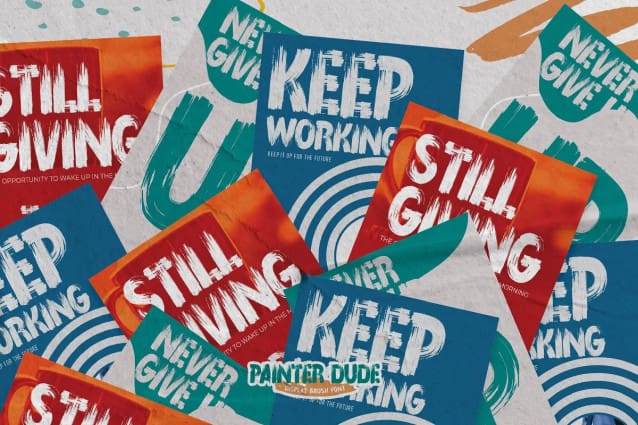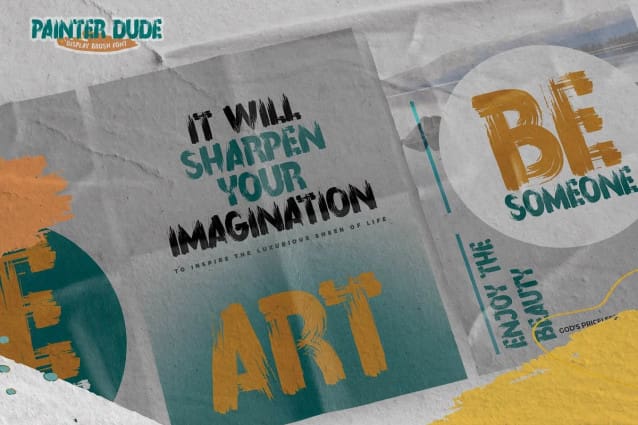
Painter Dude Font
Painter Dude Font – This Is Display Brush Font. This is a Textured Natural Style and classy style with a clear style and dramatic movement. This font Painter Dude is great for your next creative project such as logos, printed quotes, invitations, cards, product packaging, headers, Logotype, Letterhead, Poster, Design this font is great for your creative projects such as watermark on photography, and perfect for logos & branding, invitation,advertisements,product designs, stationery, wedding designs,label ,product packaging, special events or anything that need handwritting taste. That is has charming, authentic and relaxed characteristic more natural look to your text.